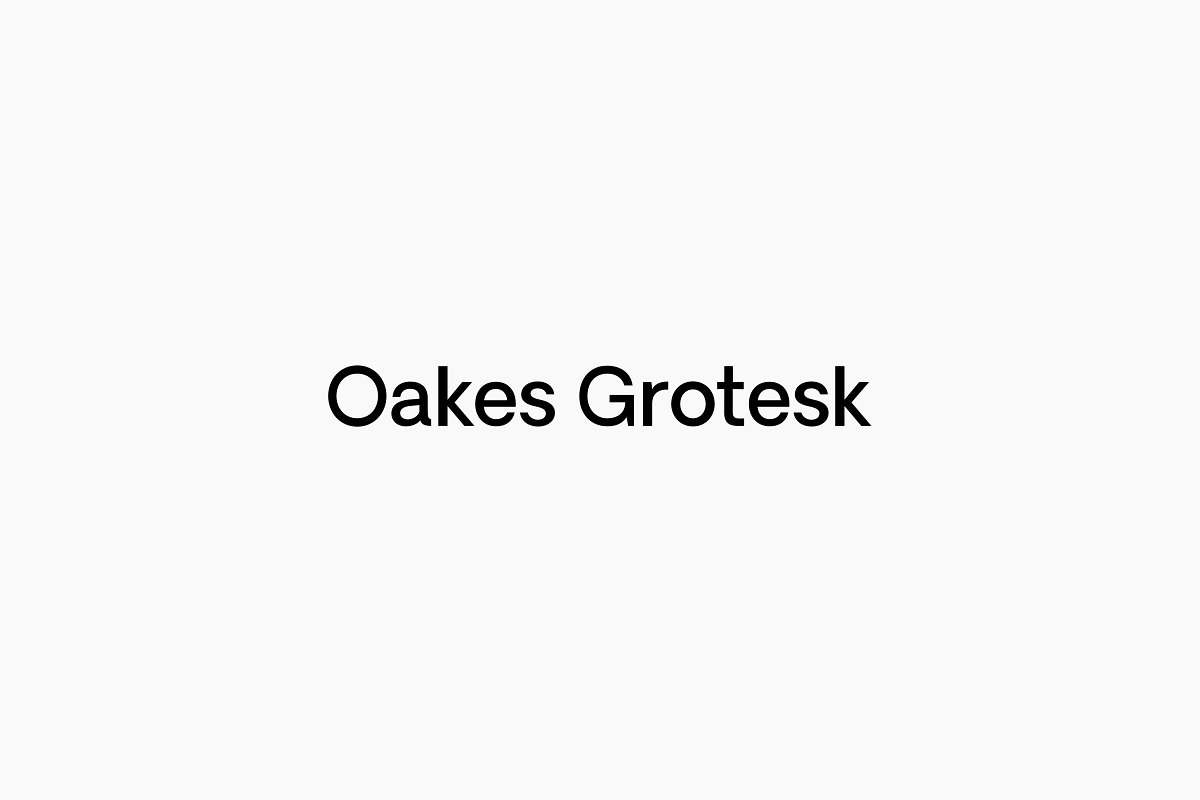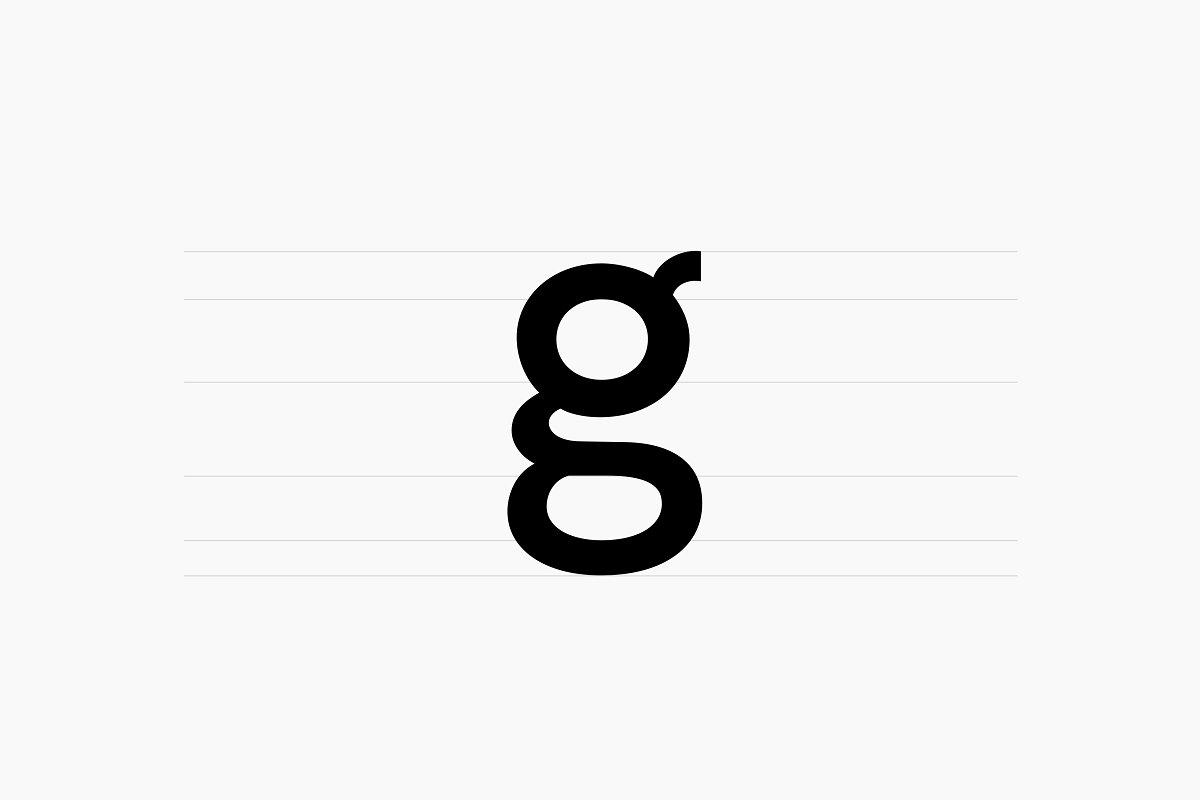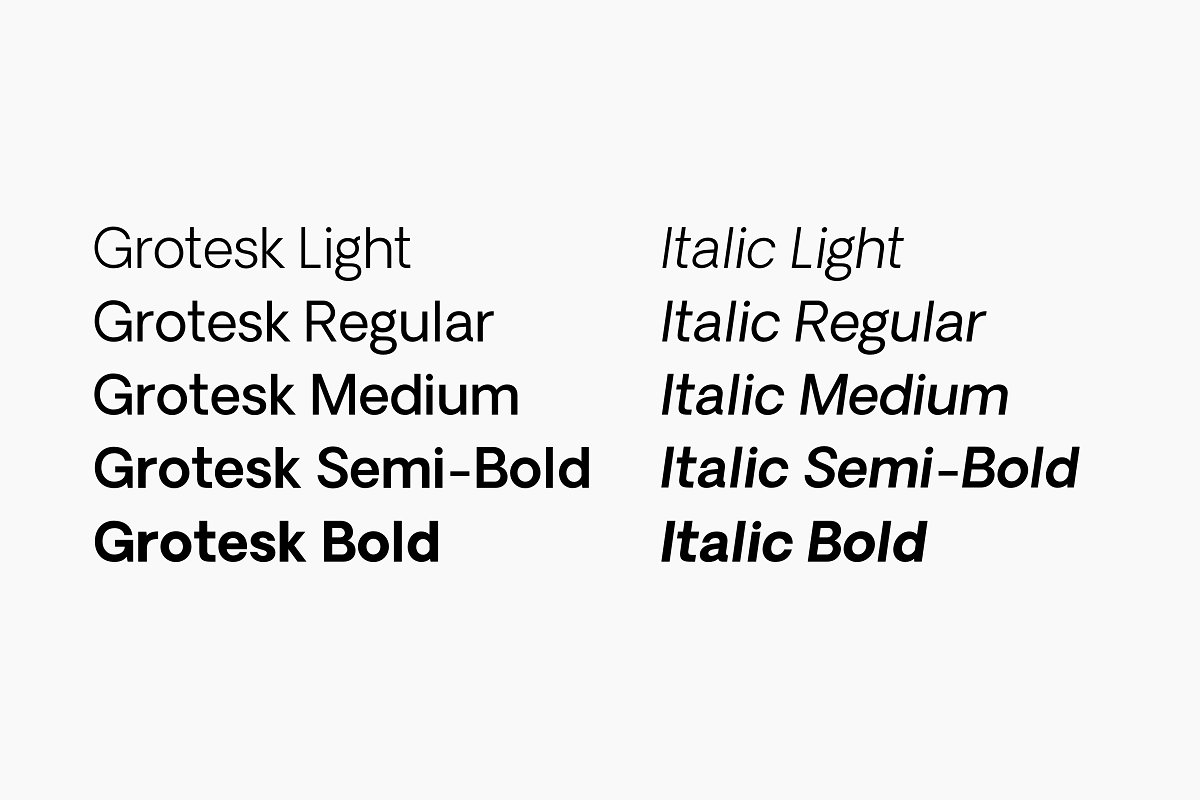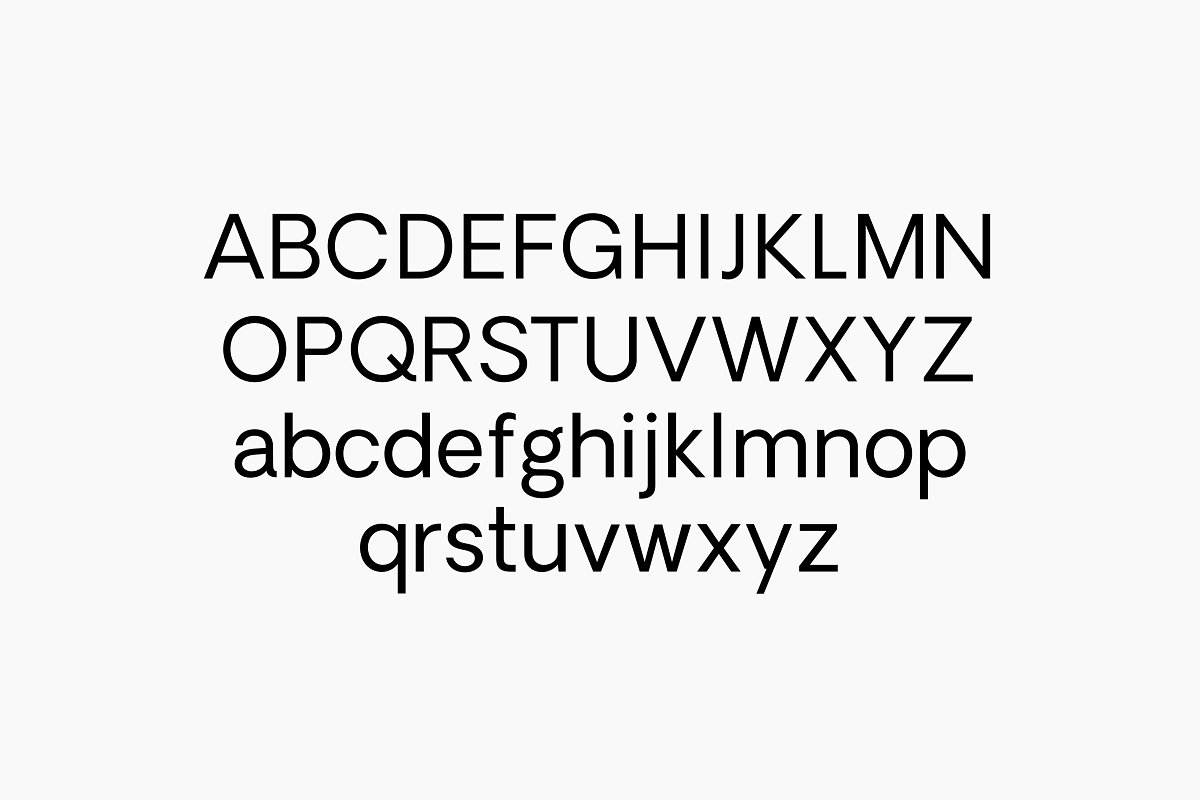
About the Oakes Grotesk Full Family
5 weights, and italicsOakes Grotesk is a more corporate take on the Oakes typeface, It explores a set of brand new metrics that allow it to be more legible in body text as well as headings, The letter ‘g’ has been tweaked to become double-story as well as the refinement of other characters, This is all whilst maintaining the subtle curves of the Oakes typeface